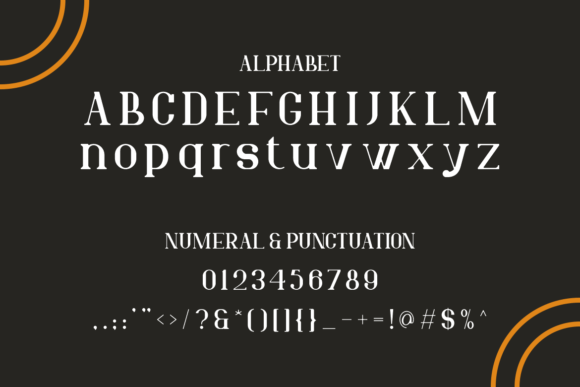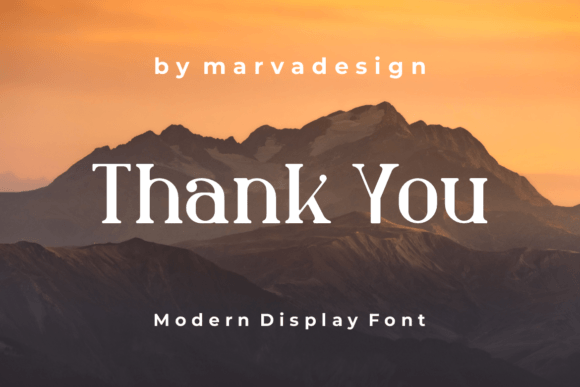
Awareness Font: Elevate Your Designs with a Beautiful Serif Font
Awareness is a stunning Serif font that has been making waves in the design community. Its unique blend of classic elegance and modern sophistication makes it the perfect choice for a wide range of design projects. Whether you’re looking to create a logo, poster, invitation, or any other craft project, Awareness Font is sure to exceed your expectations.
What Makes Awareness Font So Special?
Awareness Font boasts a distinctive Serif style that exudes refinement and poise. Its carefully crafted letterforms are designed to convey a sense of luxury, making it an excellent choice for designers who want to add a touch of sophistication to their work. The font’s elegant lines, precise curves, and balanced spacing create a harmonious visual experience that will leave a lasting impression on your audience.
Key Features of Awareness Font
- Serif Style: Awareness Font features a classic Serif style that adds a touch of tradition and elegance to any design.
- Highly Legible: The font’s clear and precise letterforms ensure excellent readability, making it perfect for body text and headings.
- Versatile: Awareness Font can be used for a wide range of design projects, from logos and posters to invitations and craft projects.
Awareness Font is an excellent choice for logos and branding projects. Its unique Serif style and elegant lines make it perfect for creating memorable and impactful logos that will help your brand stand out. The font’s high legibility ensures that your logo will be easily recognizable, even at small sizes.
Great for Posters and Flyers
Whether you’re designing a poster, flyer, or any other print material, Awareness Font is a great choice. Its bold and elegant letterforms will grab attention and add a touch of sophistication to your design. The font’s versatility makes it perfect for a wide range of poster and flyer designs, from formal events to promotional materials.
Ideal for Invitations and Stationery
Awareness Font is also perfect for designing invitations, stationery, and other paper crafts. Its elegant lines and precise curves create a beautiful and refined look that will add a touch of luxury to any invitation or stationery set. The font’s classic Serif style makes it perfect for formal events, such as weddings, graduations, and anniversaries.
Tips for Using Awareness Font
- Pair with Other Fonts: Awareness Font pairs well with other Serif and Sans-Serif fonts. Experiment with different font combinations to create a unique and visually appealing design.
- Adjust Font Size: Awareness Font is highly legible at various font sizes. Experiment with different font sizes to create visual hierarchy and add emphasis to your design.
- Use for Headings and Body Text: Awareness Font is perfect for both headings and body text. Use it to create a cohesive and harmonious design that will engage your audience.
Awareness Font is a beautiful Serif font that is perfect for designers and crafters who want to add a touch of elegance and sophistication to their work. Its unique blend of classic style and modern sophistication makes it versatile and highly usable. Whether you’re designing a logo, poster, invitation, or any other craft project, Awareness Font is sure to exceed your expectations.